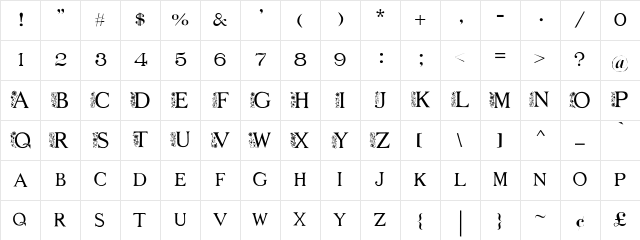
FLOWER GARDEN Regular
Designer: George Herbert Hirst and Wilfred Rhodes
Design Context for FLOWER GARDEN
FLOWER GARDEN is a composed and adaptable typeface that performs quietly and consistently across a wide range of design contexts.